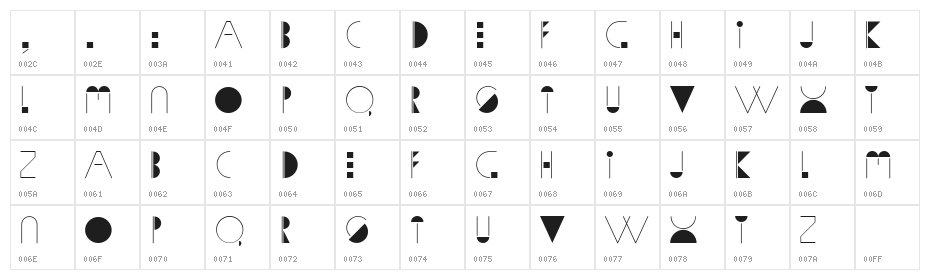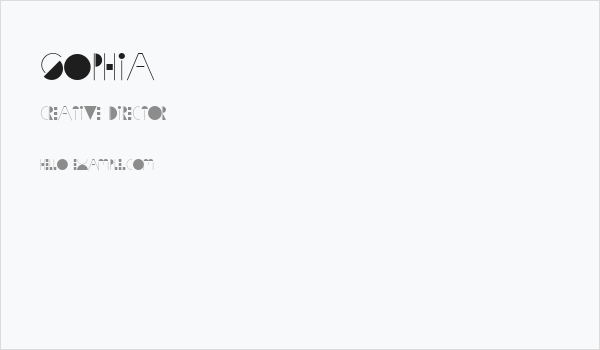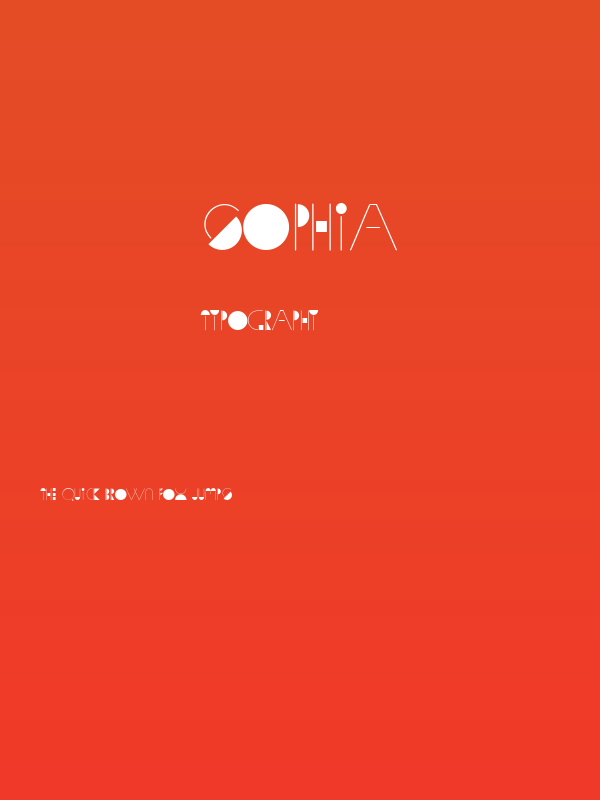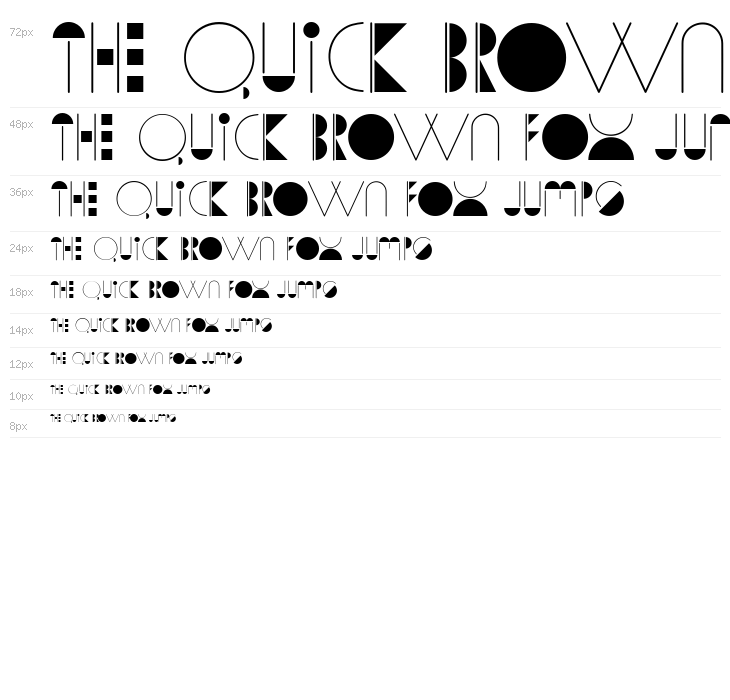
Sophia Font
Sophia Description
This font is a striking example of geometric design, characterized by its use of basic shapes such as circles, triangles, and rectangles to form each letter. The uppercase letters are particularly bold, with a modern and artistic flair that makes them stand out. The lowercase letters maintain the geometric theme but are slightly more subtle, offering a nice contrast to the uppercase. The numbers and special characters follow the same design principles, ensuring consistency throughout. This font is ideal for projects that require a modern, artistic touch, such as branding, posters, or any creative design work.
| Proposed Projects | Ideal for branding, posters, creative design projects, and modern art displays. |